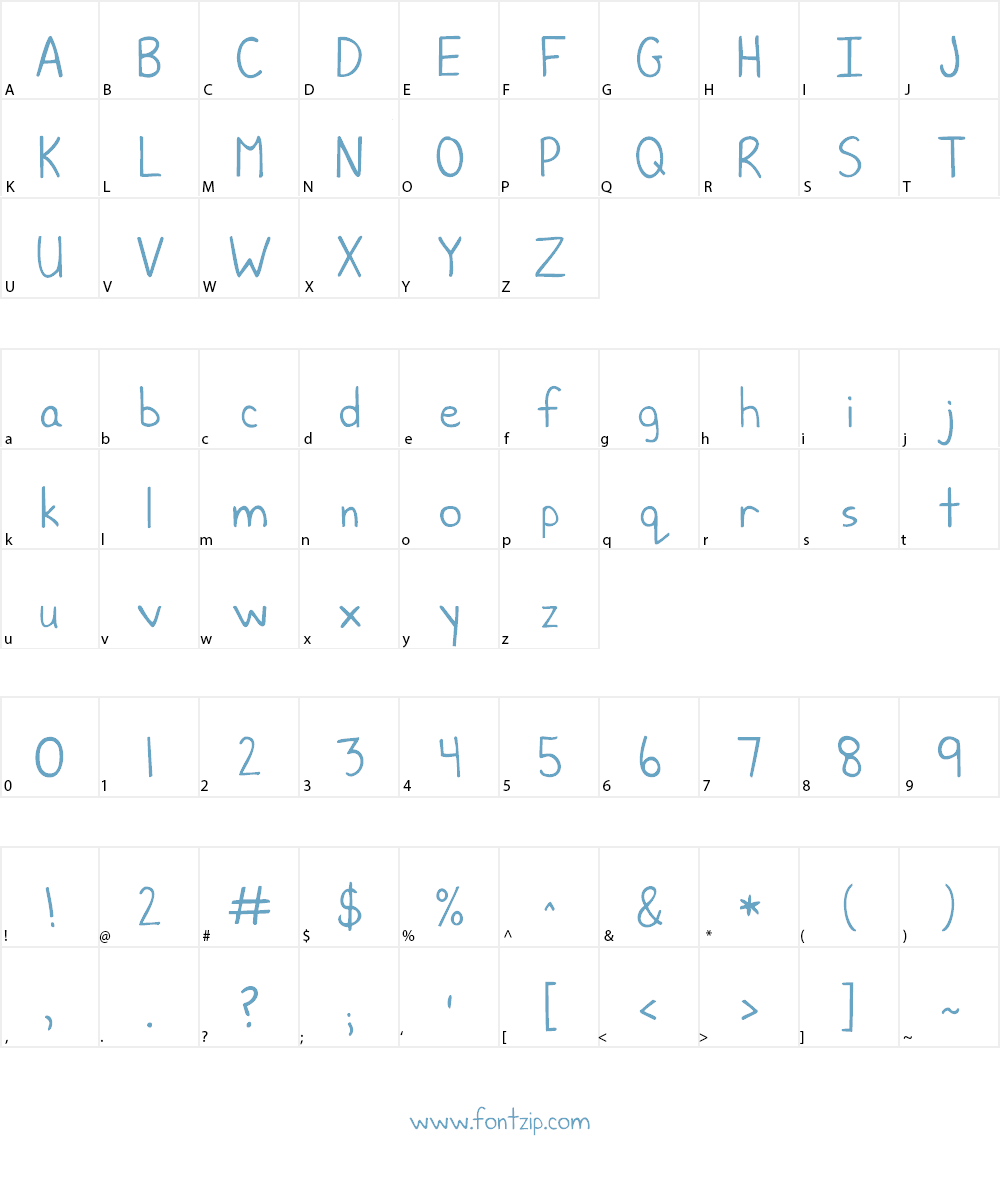
My daughters love getting letters from their Grandma Cindy written in reverse... they hold them up to the mirror to "decode" the "hidden message". This is Grandma Cindy's writing both forwards and "backwards".